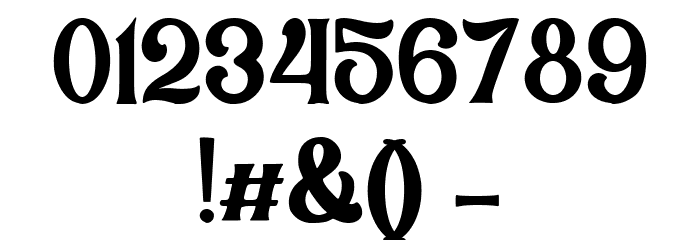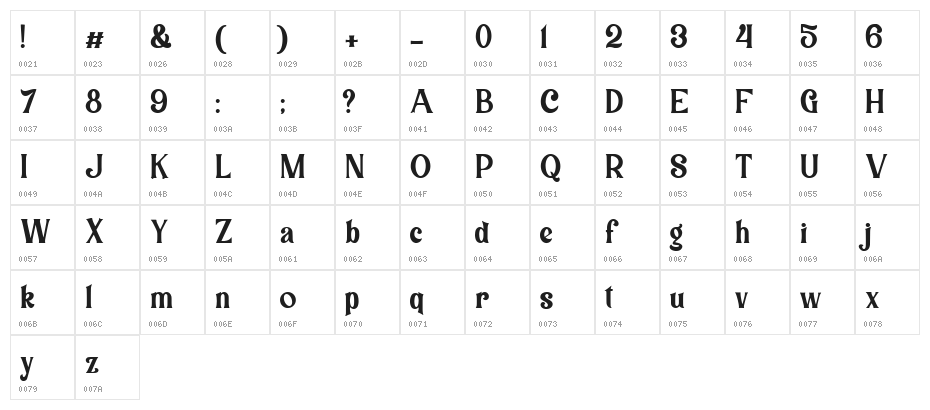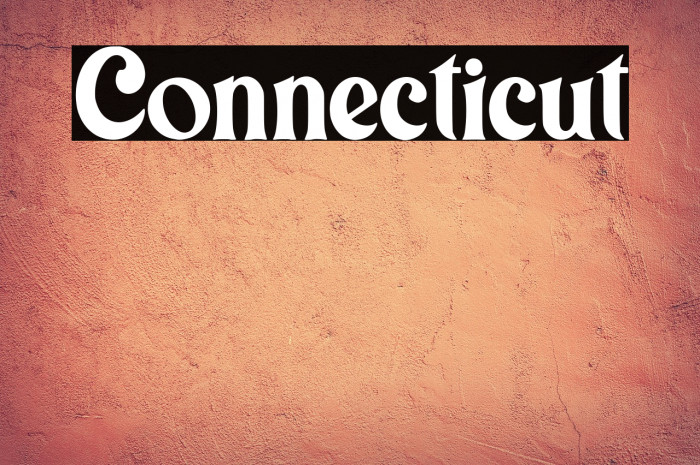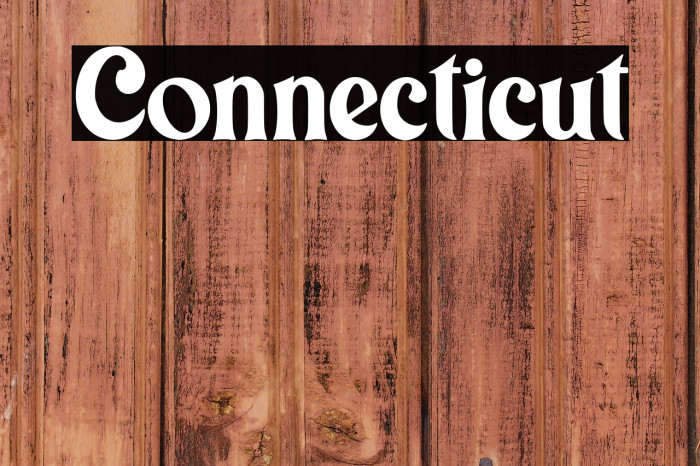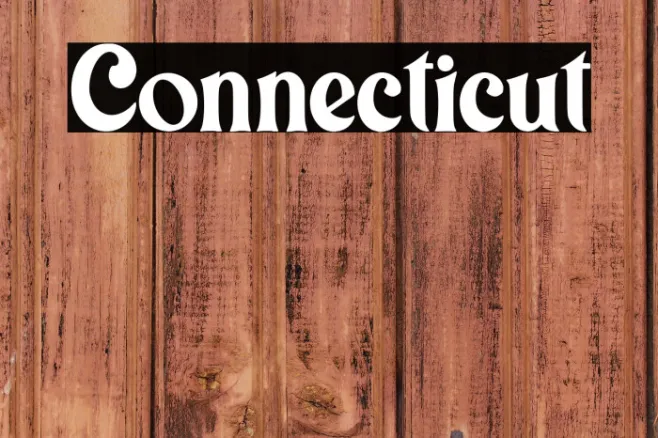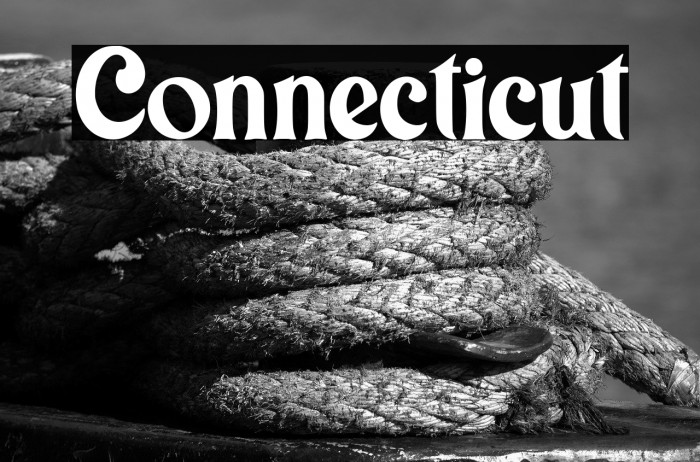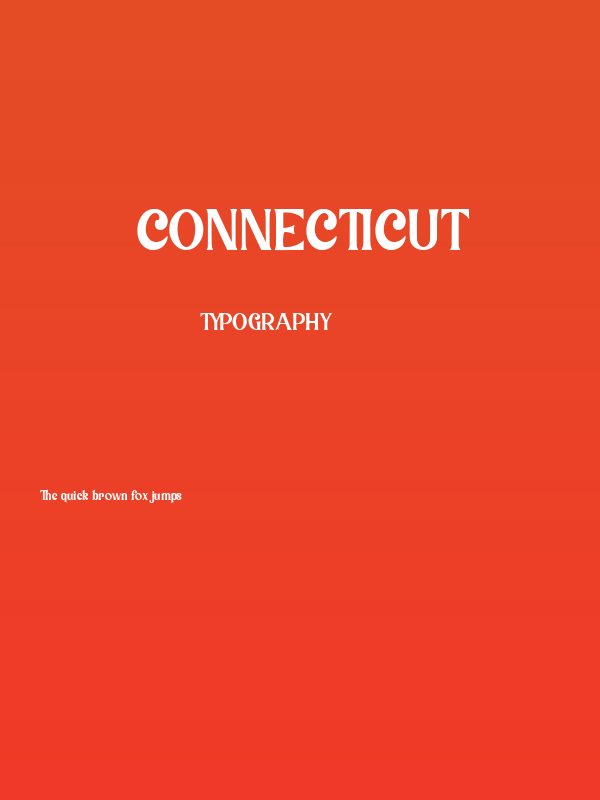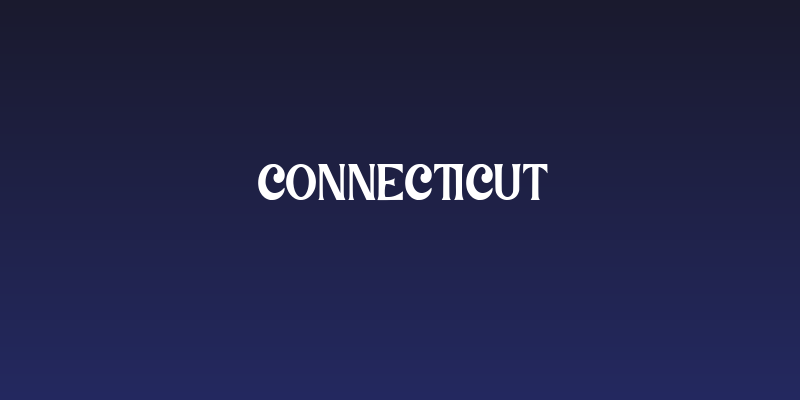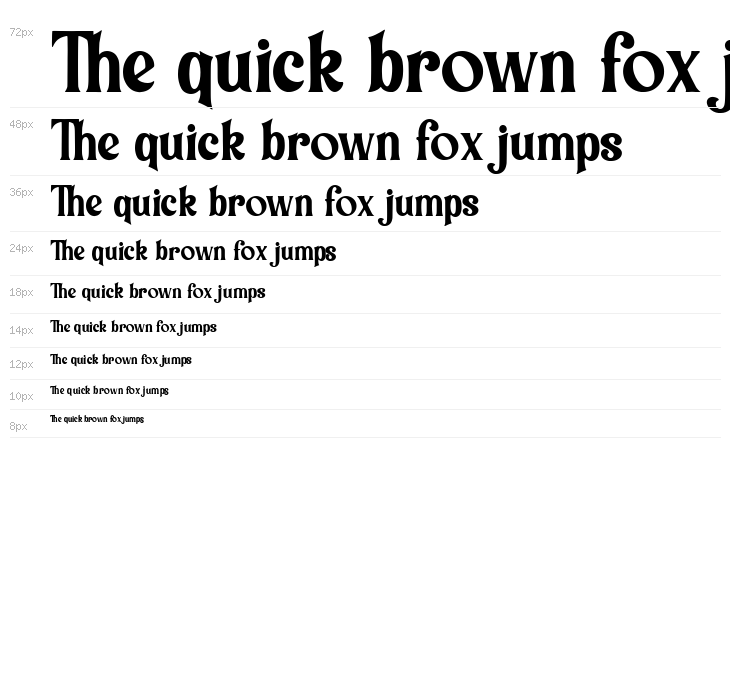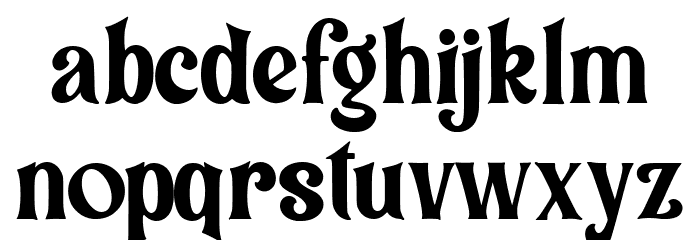
Connecticut Font
Connecticut Description
This font exhibits a bold and decorative style with a distinctive flair. The uppercase letters feature sharp, angular serifs that give them a dramatic and eye-catching appearance. The lowercase letters maintain a consistent style, with unique curves and strokes that add to the font's overall character. The numerals are equally bold, with a slightly condensed form that complements the letters. Special characters are designed with the same attention to detail, ensuring a cohesive look across all glyphs. This font's strong presence makes it ideal for impactful designs.